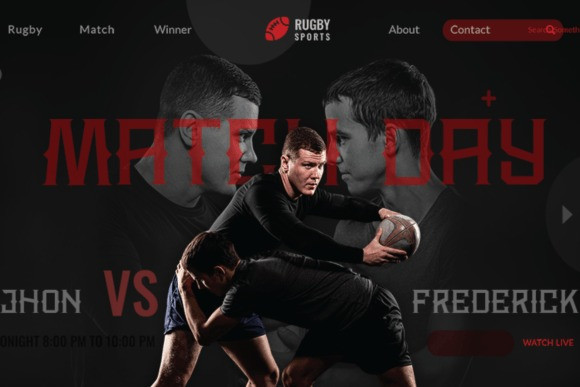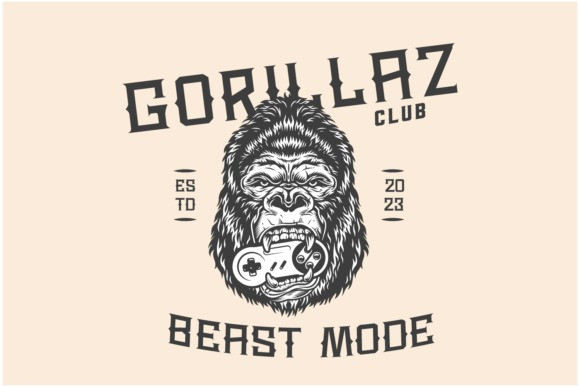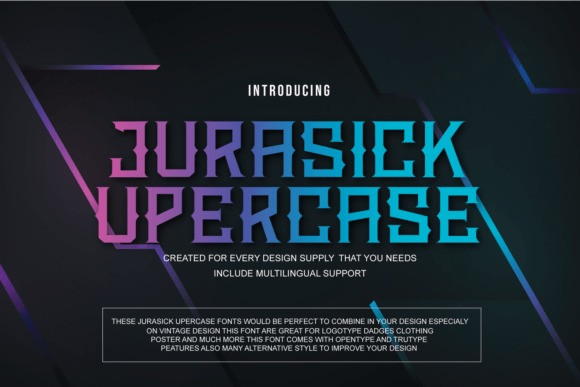
Jurasick Uppercase Font
Jurasick Uppercase Display Font is a bold and unique display font that is perfect for creating eye-catching logos, headlines, and titles. With its sharp edges, smooth curves, and strong lines, it has a modern, edgy style that will make your message stand out.